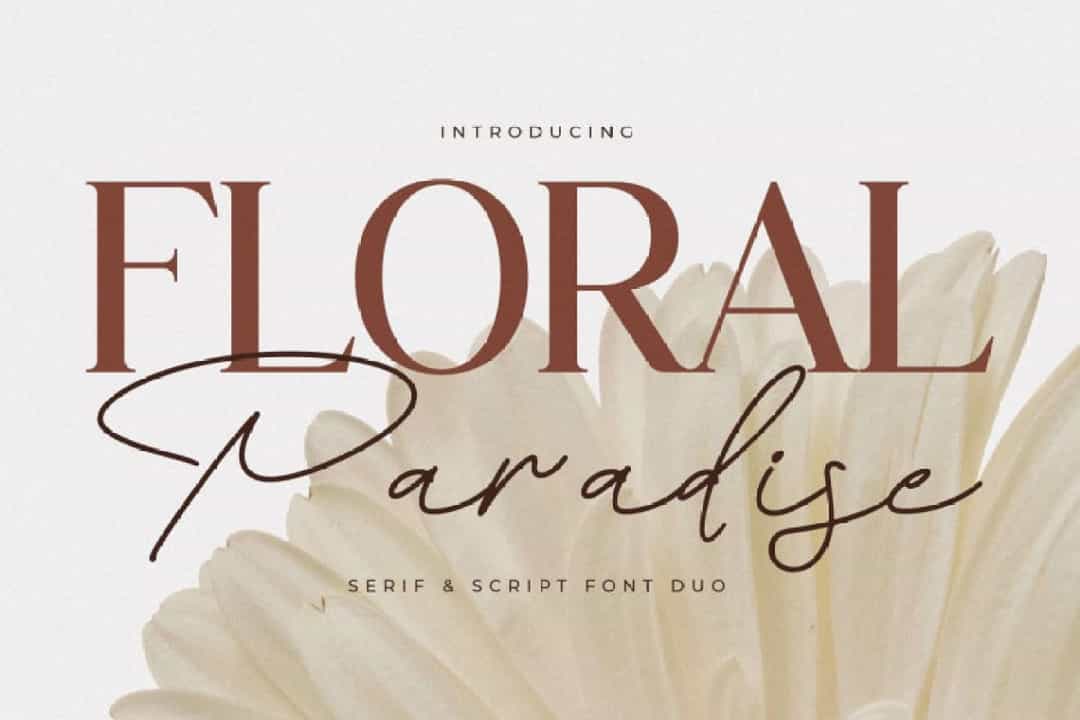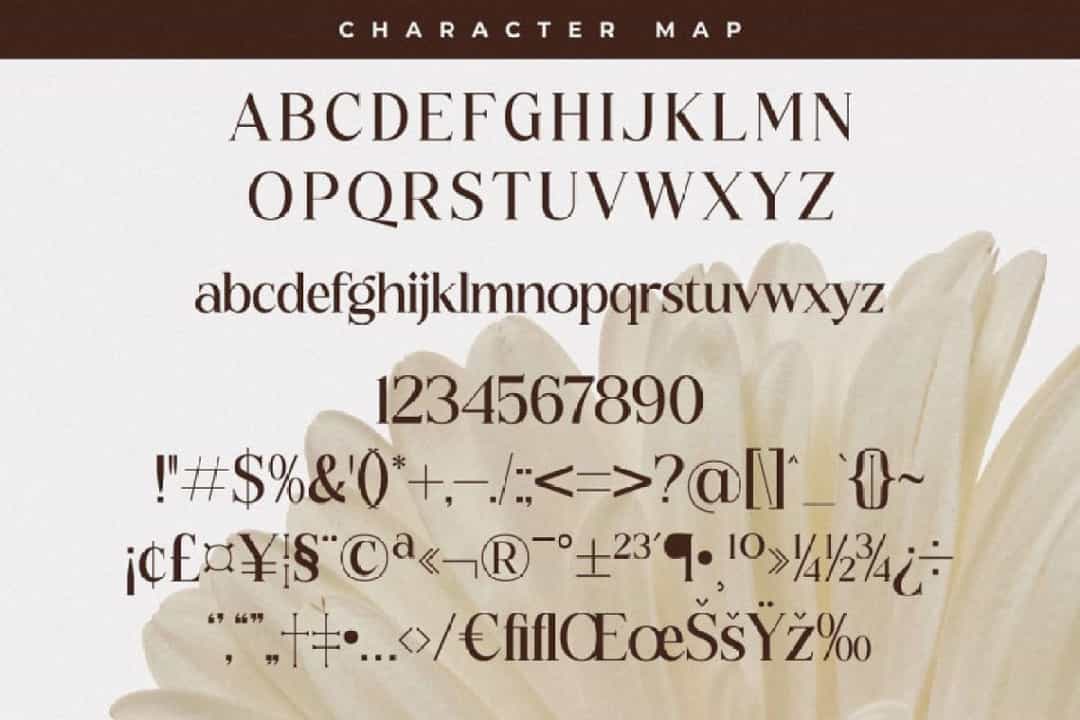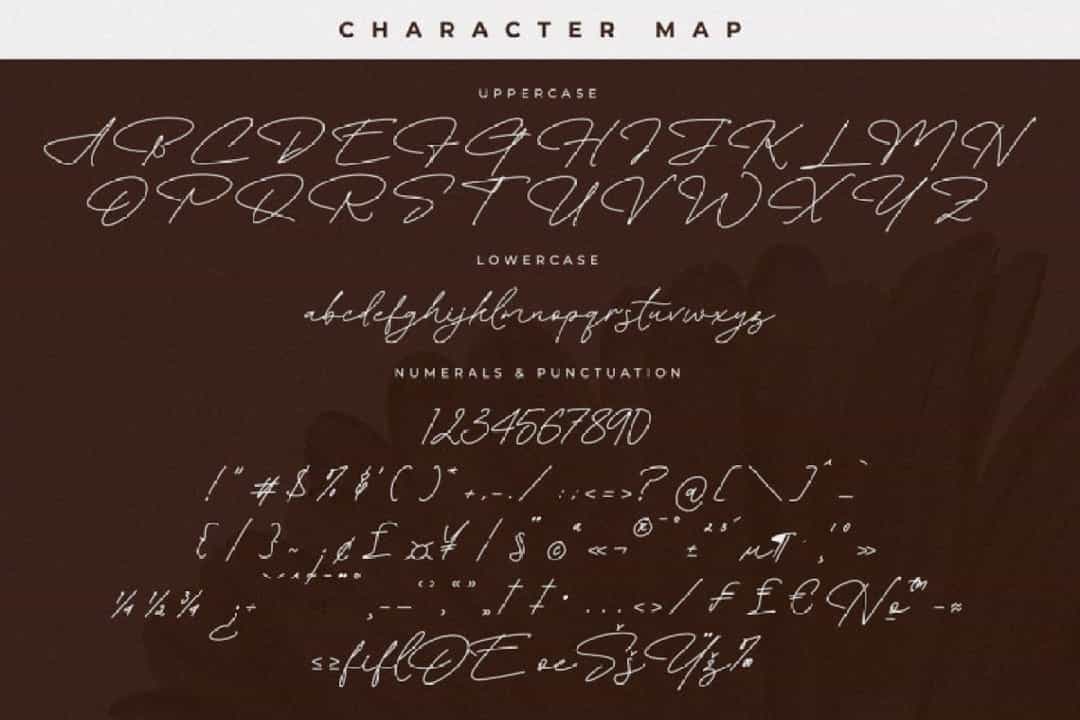
Floral Paradiseis an eye-catching Serif font and script, offering both modern and sophisticated styling. Perfect for logo designs, movie and book titles as well as fashion brands, magazines clothing lines, lettering quotes and many other applications, Floral Paradise makes an impression wherever it appears.